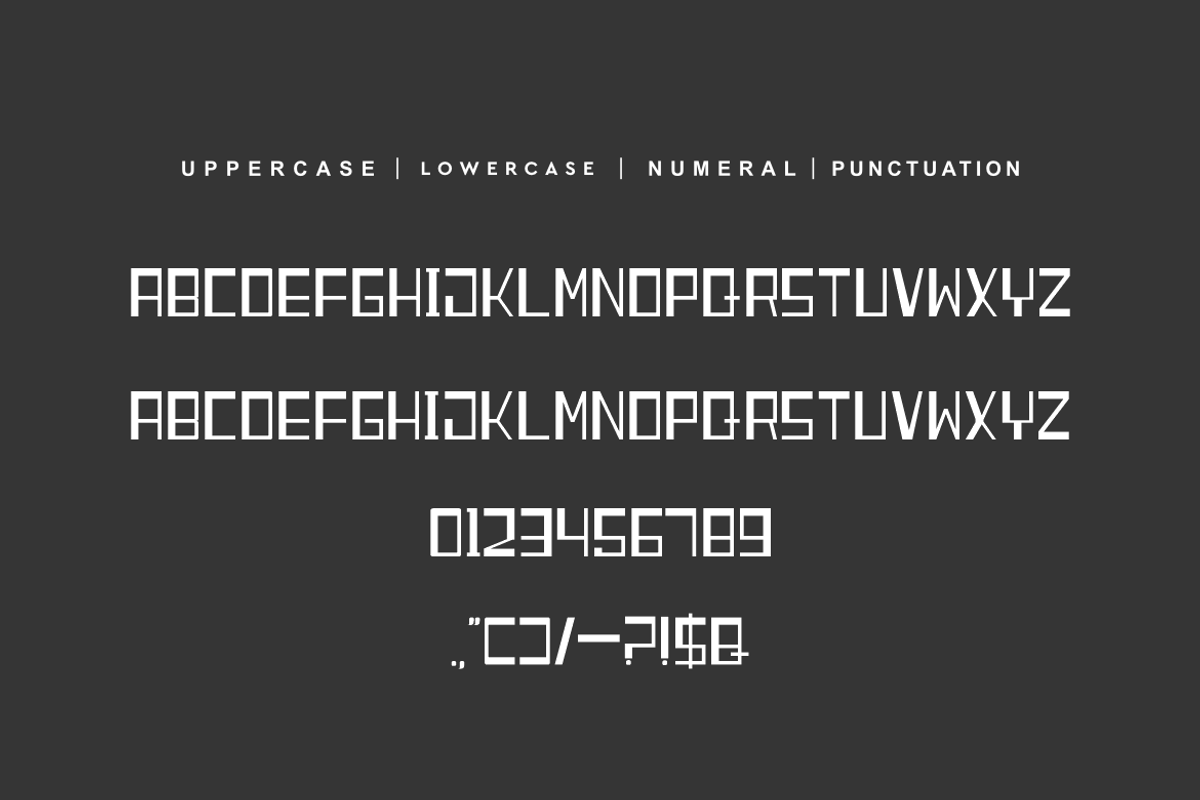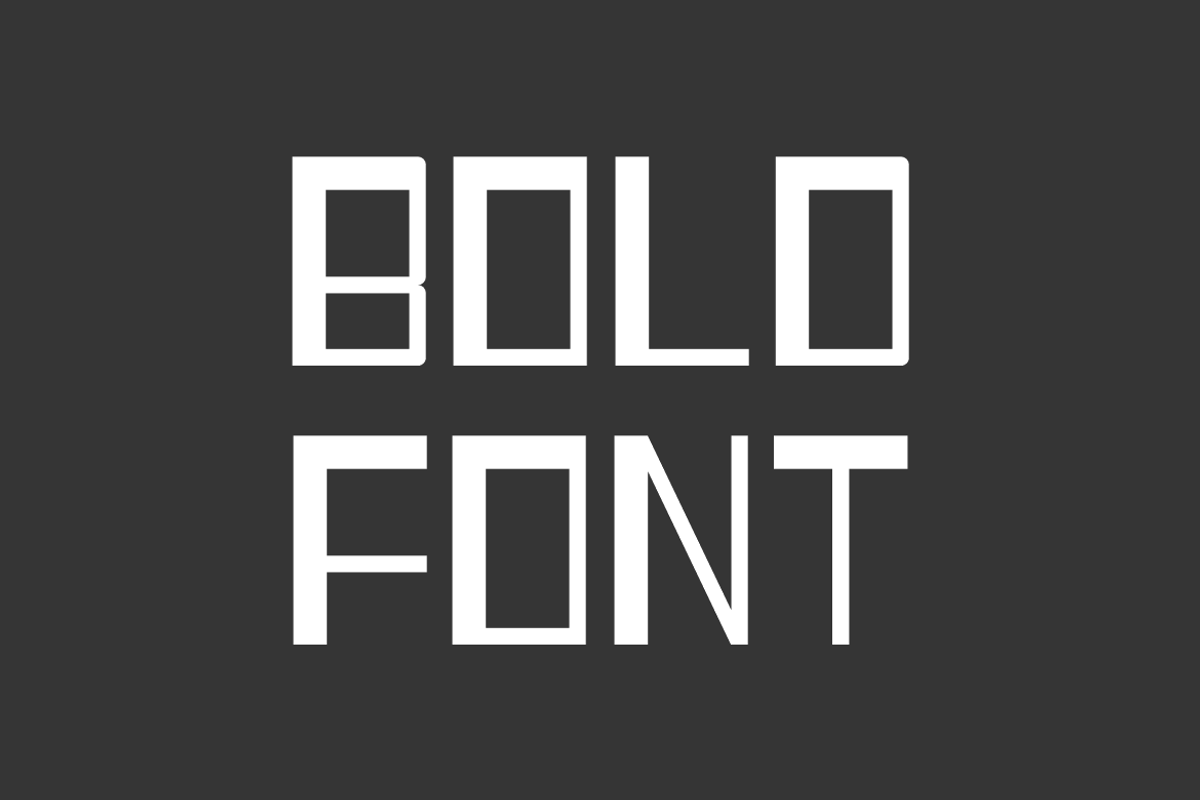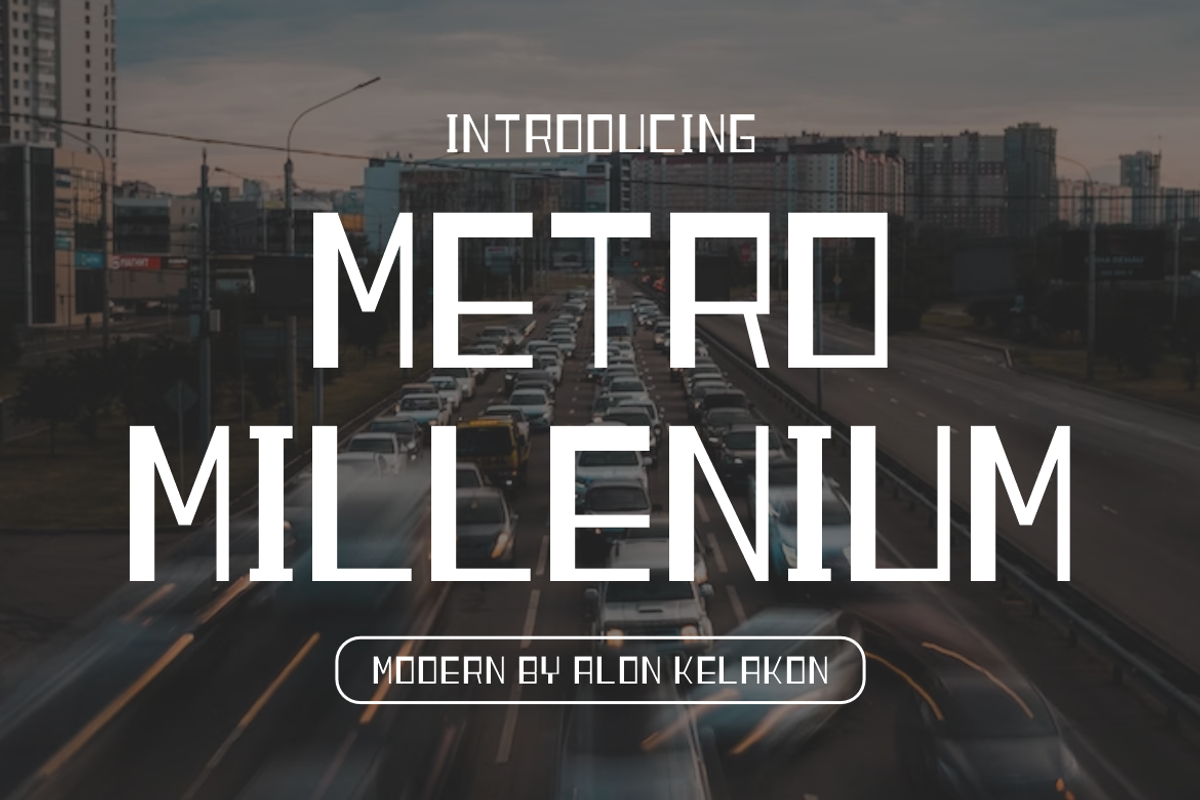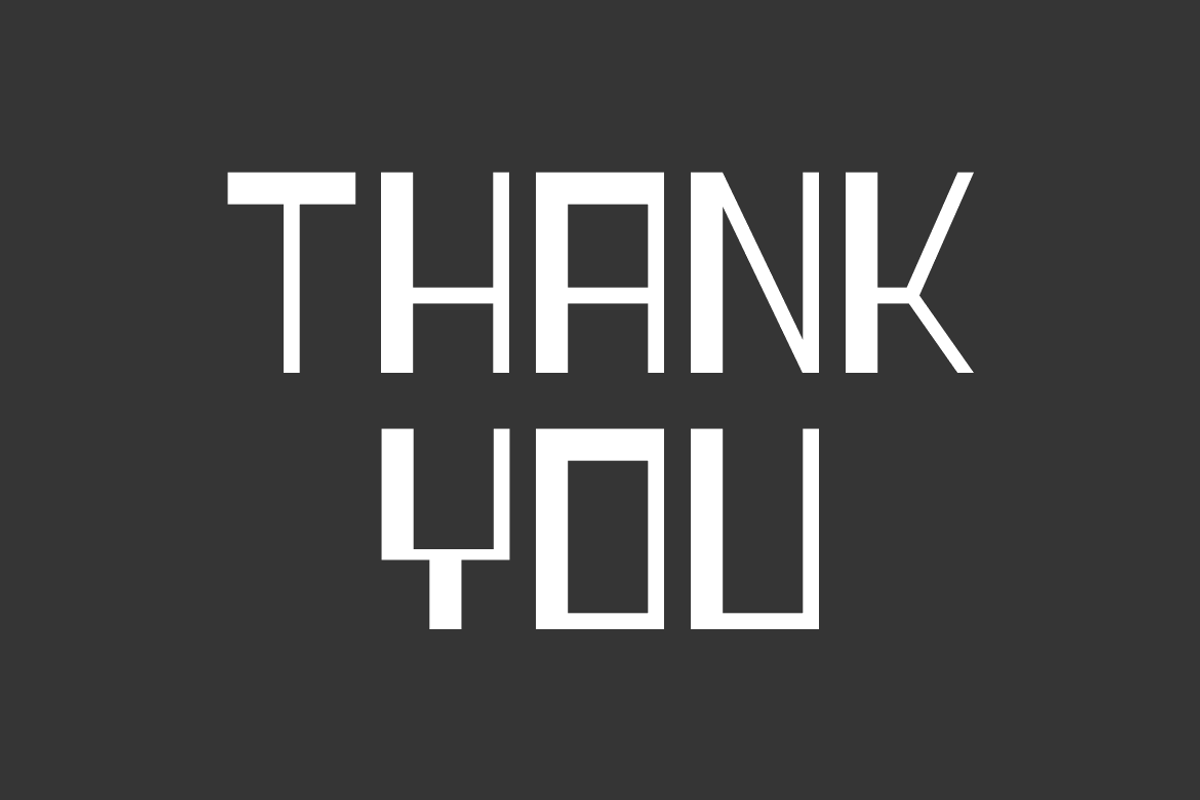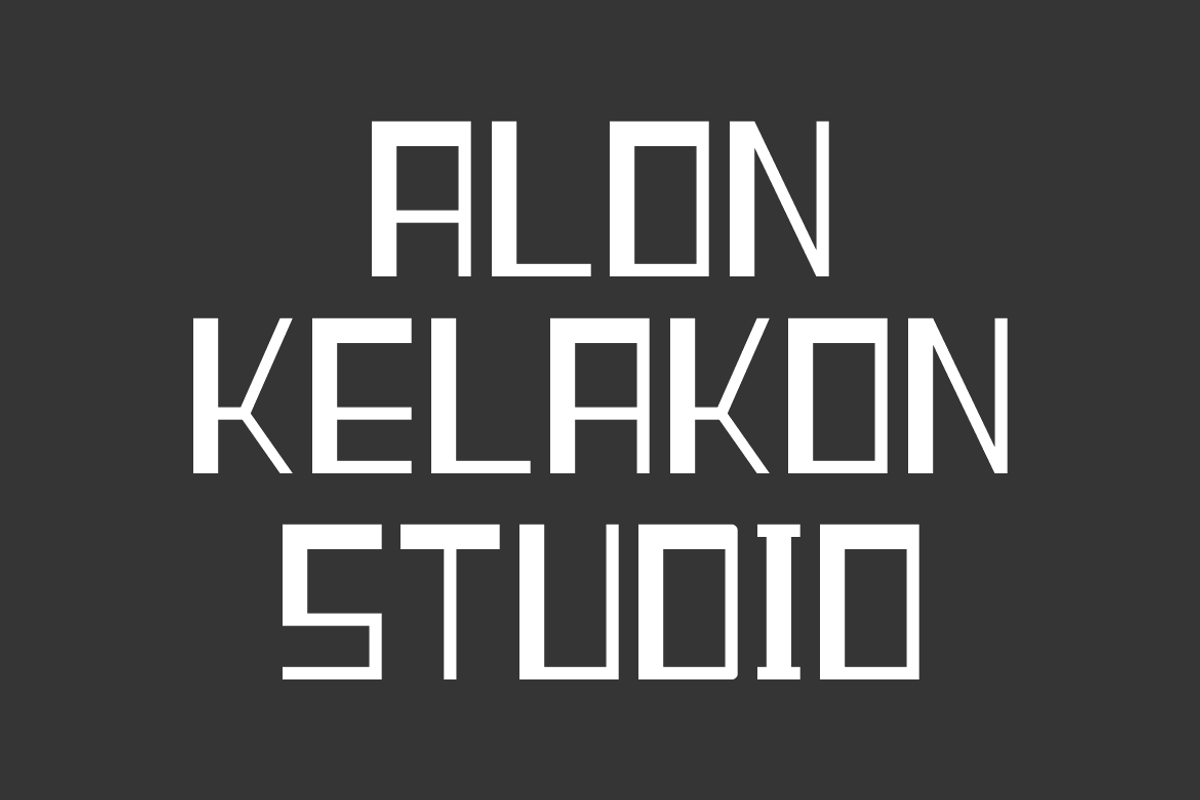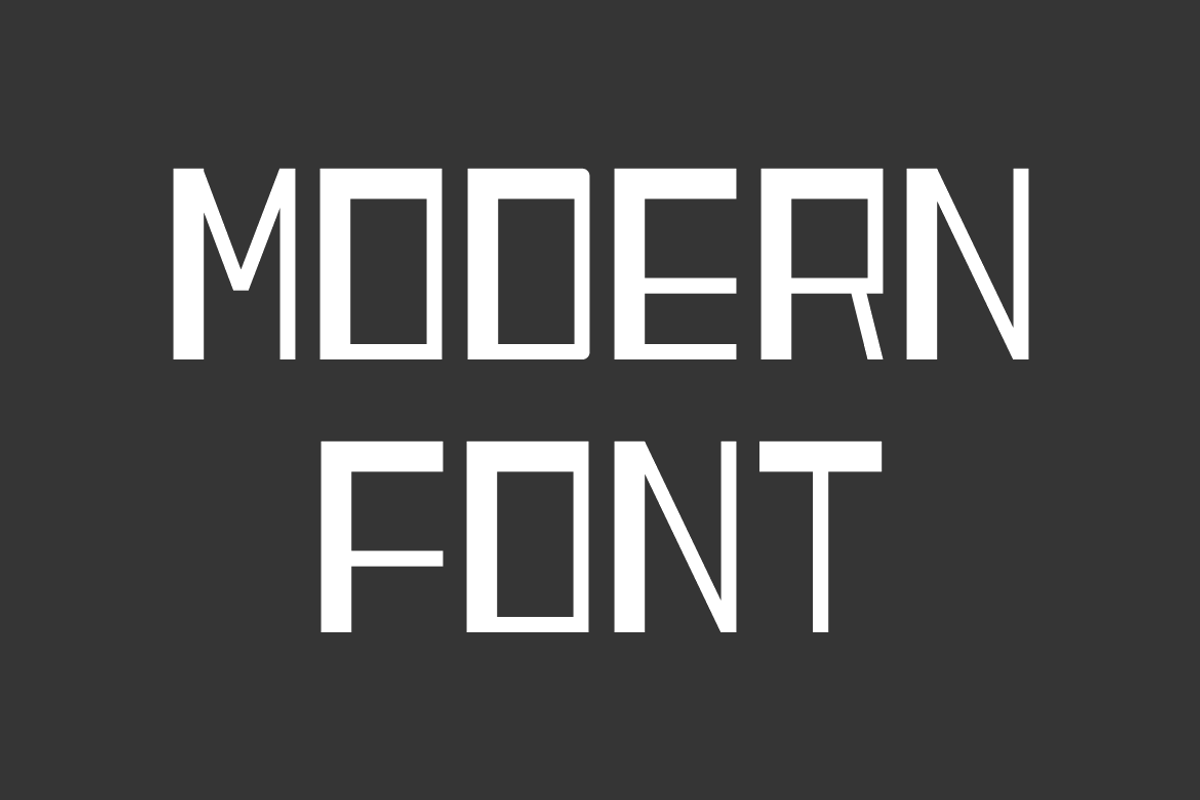
Metro Millenium
Metro Millenium Font is unique . Ready to use for your design like labeling, movie sceen, poster, movie title, gigs, album covers, logos, and much more.